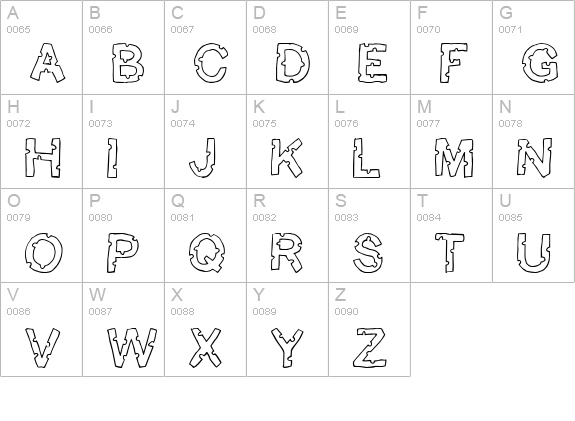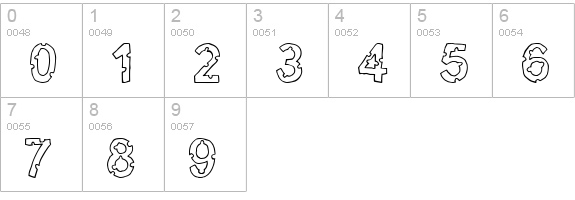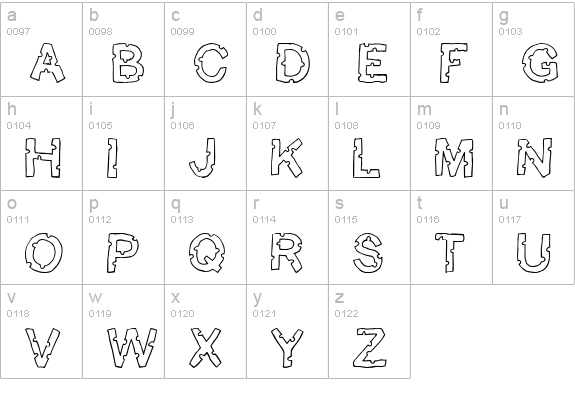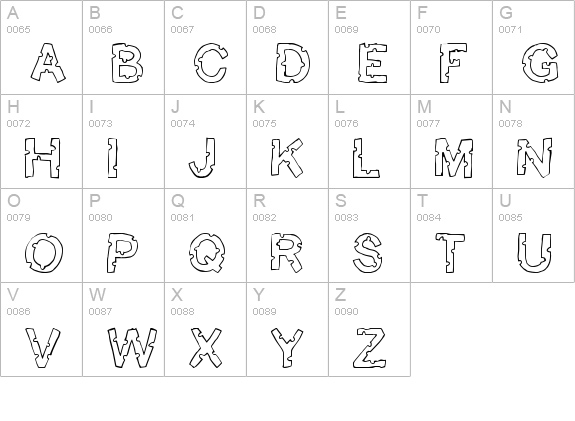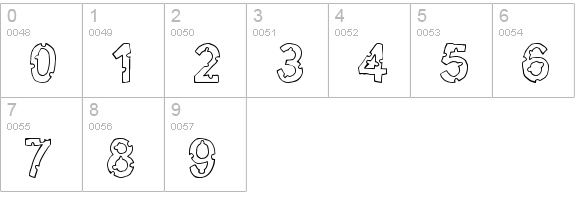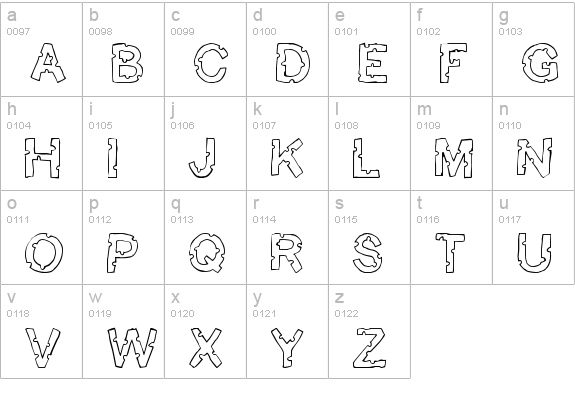
Bite me Font Details
Introducing Bite Me font, a playful and eye-catching typeface that is sure to make your designs stand out! This quirky font features unique bite marks on each letter, adding a fun and whimsical touch to any project. Perfect for posters, logos, invitations, and more, Bite Me font is versatile and full of personality. The best part? Bite Me font is completely free to download at FontsMarket.com! Simply head over to the website and grab this fantastic font to add a touch of charm to your designs. Don't miss out on this exciting opportunity to elevate your projects with the delightful Bite Me font. Download it now and let your creativity shine!